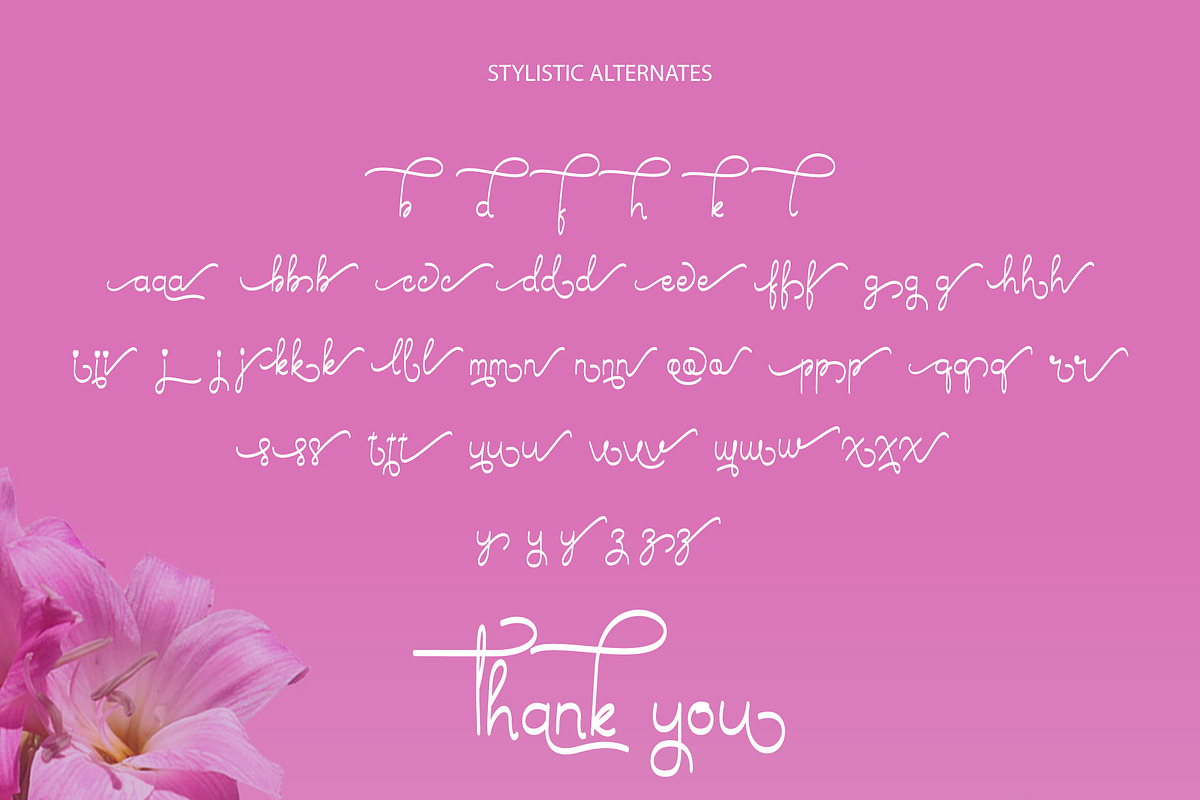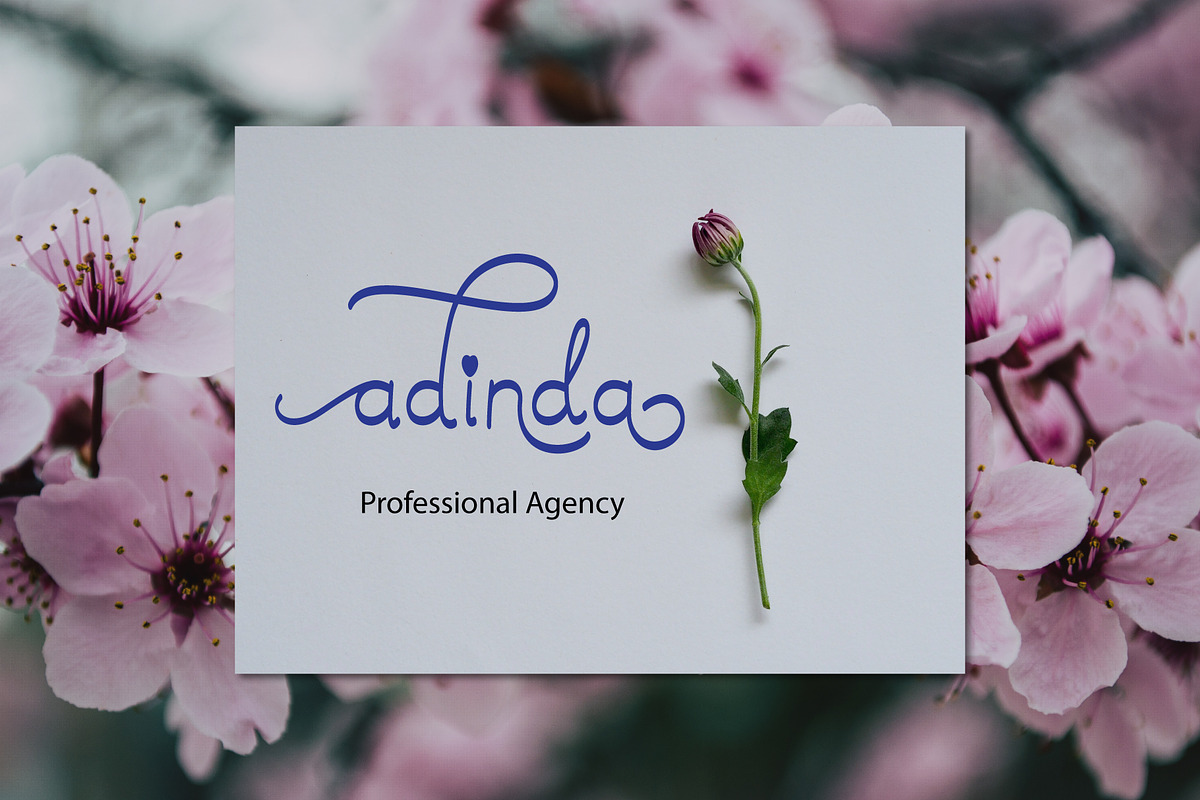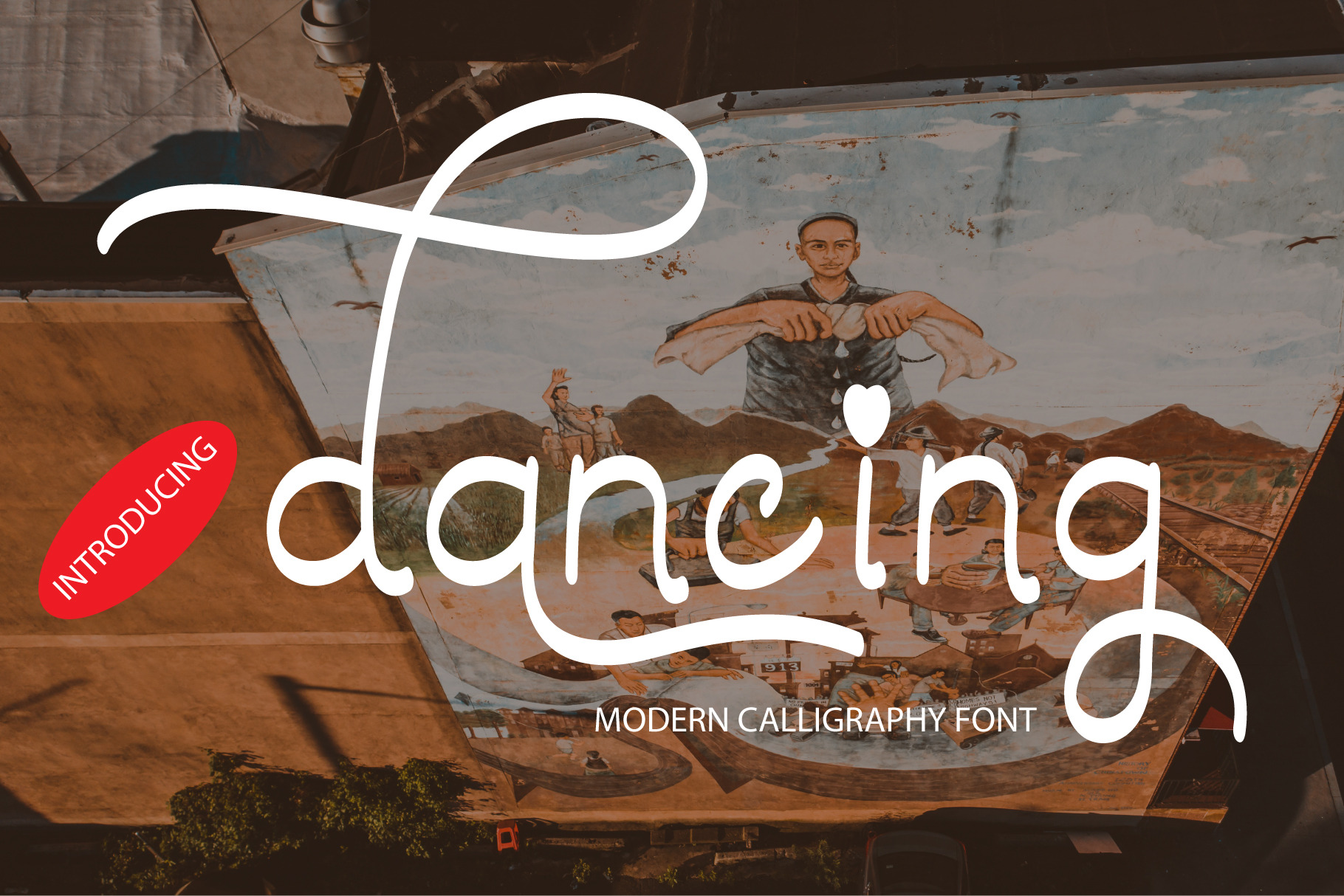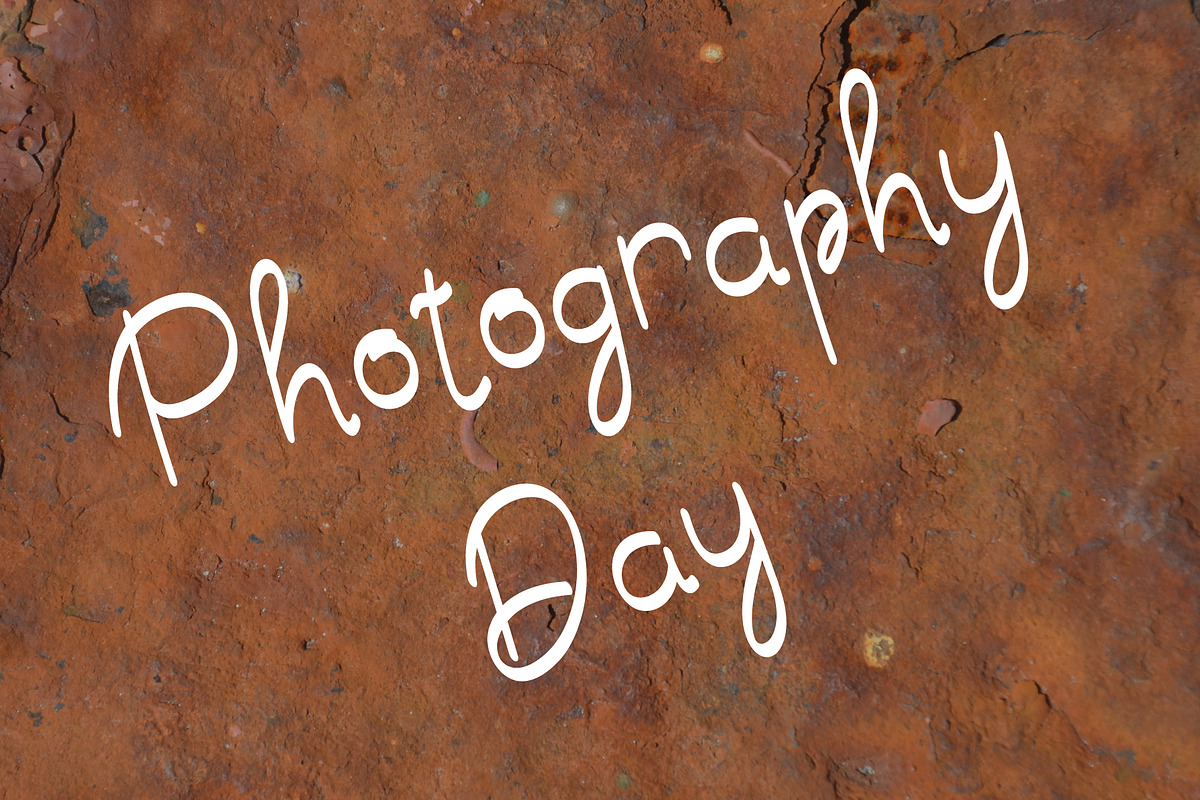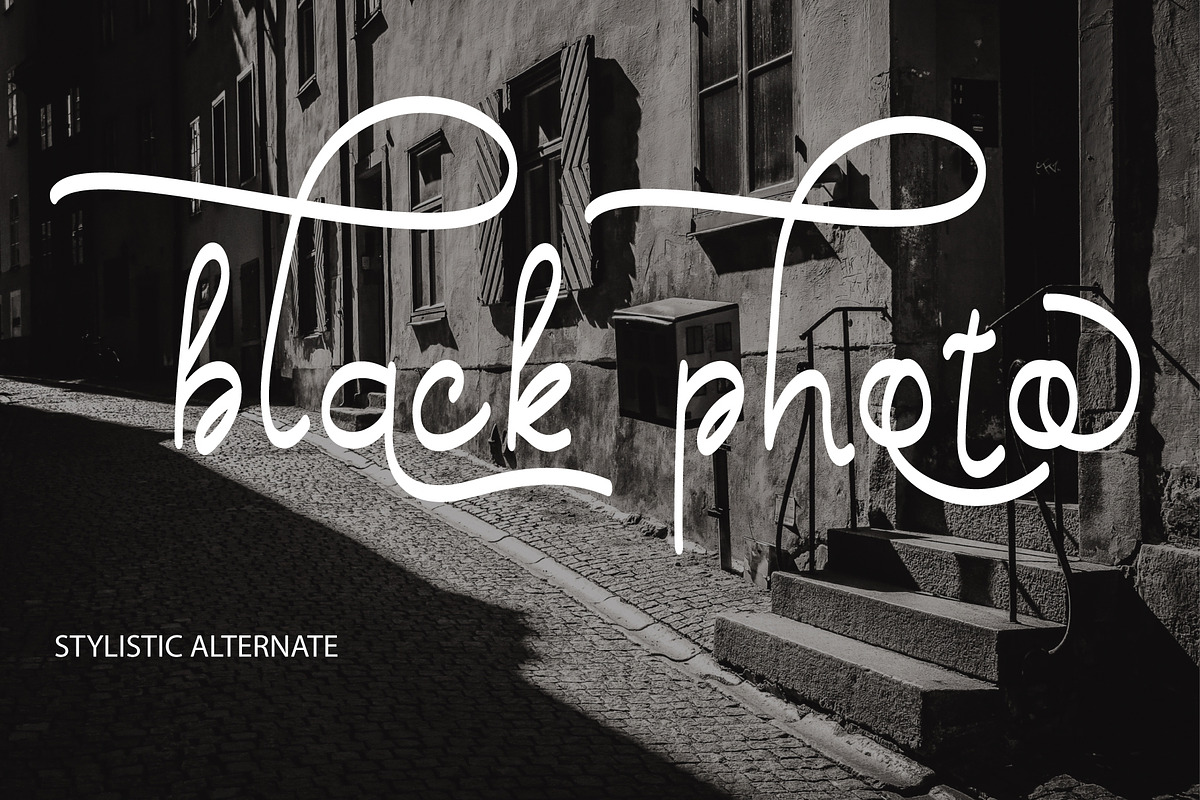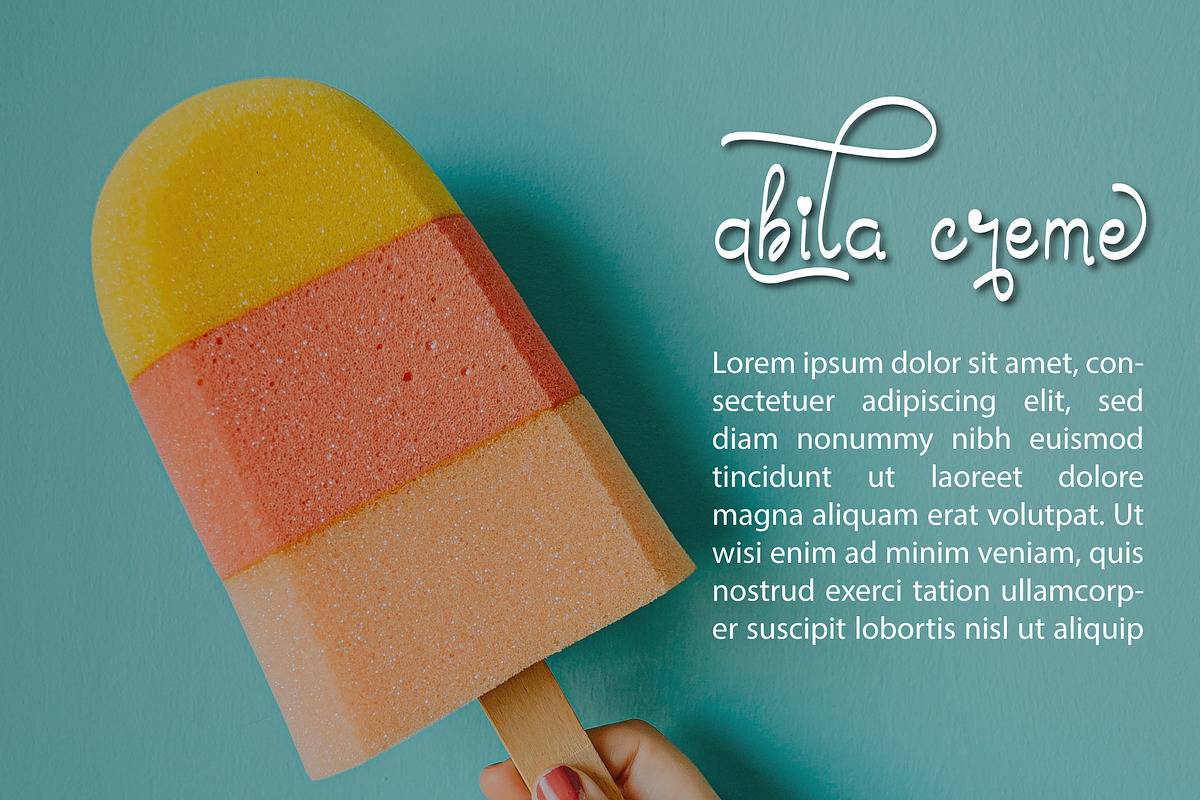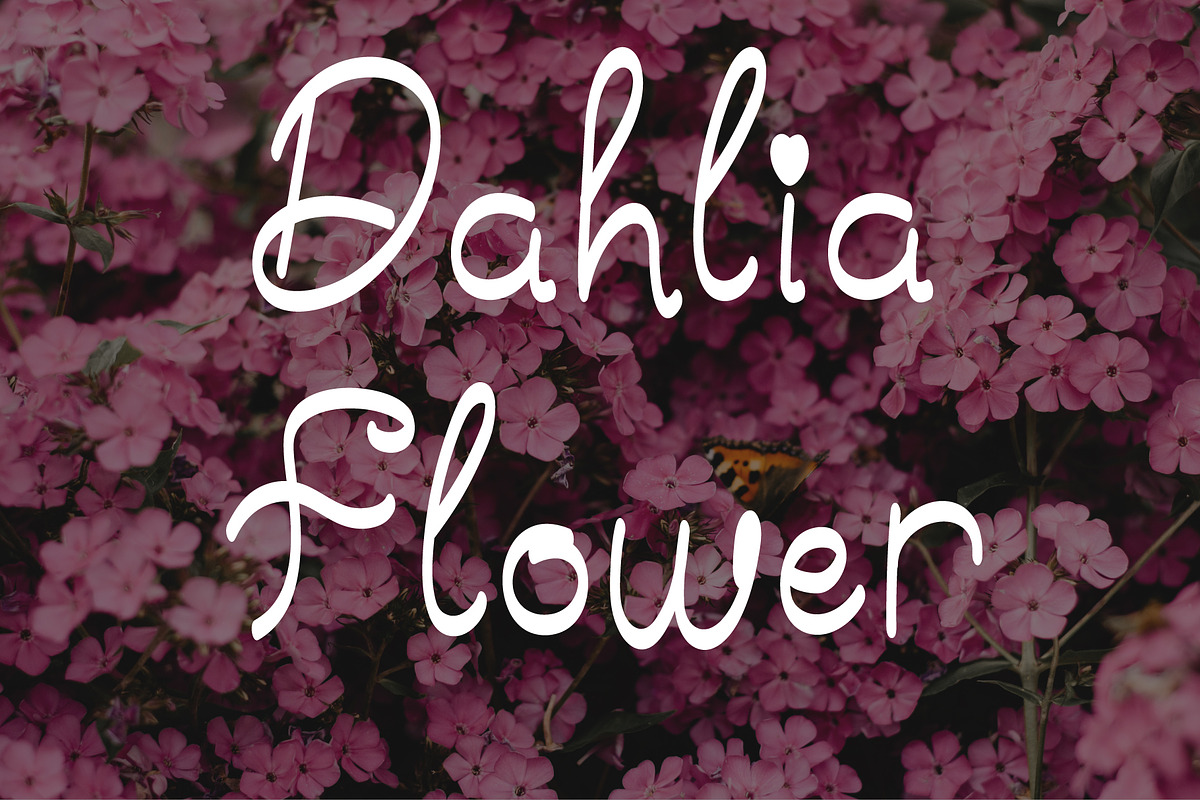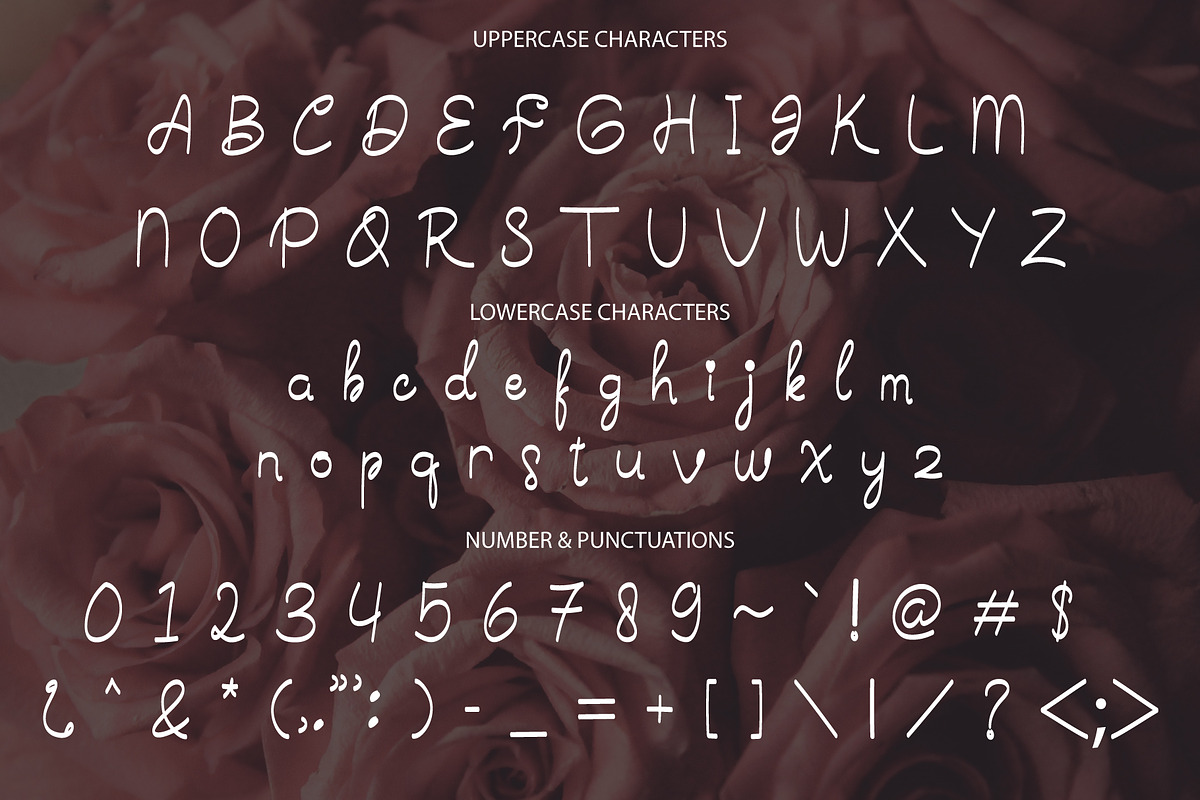
Dancing – Modern Calligraphy Font
Introducing Dancing – a lively and modern handwritten calligraphy font designed to bring a playful, expressive, and stylish touch to your creative projects. With its smooth strokes and cartoon-inspired charm, Dancing is the perfect font for those who want to make their text pop with personality.
This versatile font is ideal for:
YouTube thumbnails
Instagram & Facebook posts
Twitter graphics
Comic books and cartoons
Fun product packaging
Logo and branding design
TV show titles and entertainment media
Creative business names
Kids-themed content
Posters, flyers, and promotional materials
Whether you're working on a quirky title, a catchy brand identity, or fun social media content, Dancing adds that extra flair to captivate your audience. Every letter flows with a handwritten rhythm, giving your text a sense of movement and life—just like a dance.
Uppercase & lowercase letters
Smooth and clean curves for a professional finish
Bring your designs to life with the playful energy of Dancing . Let your words dance across the screen or page with joy and creativity!